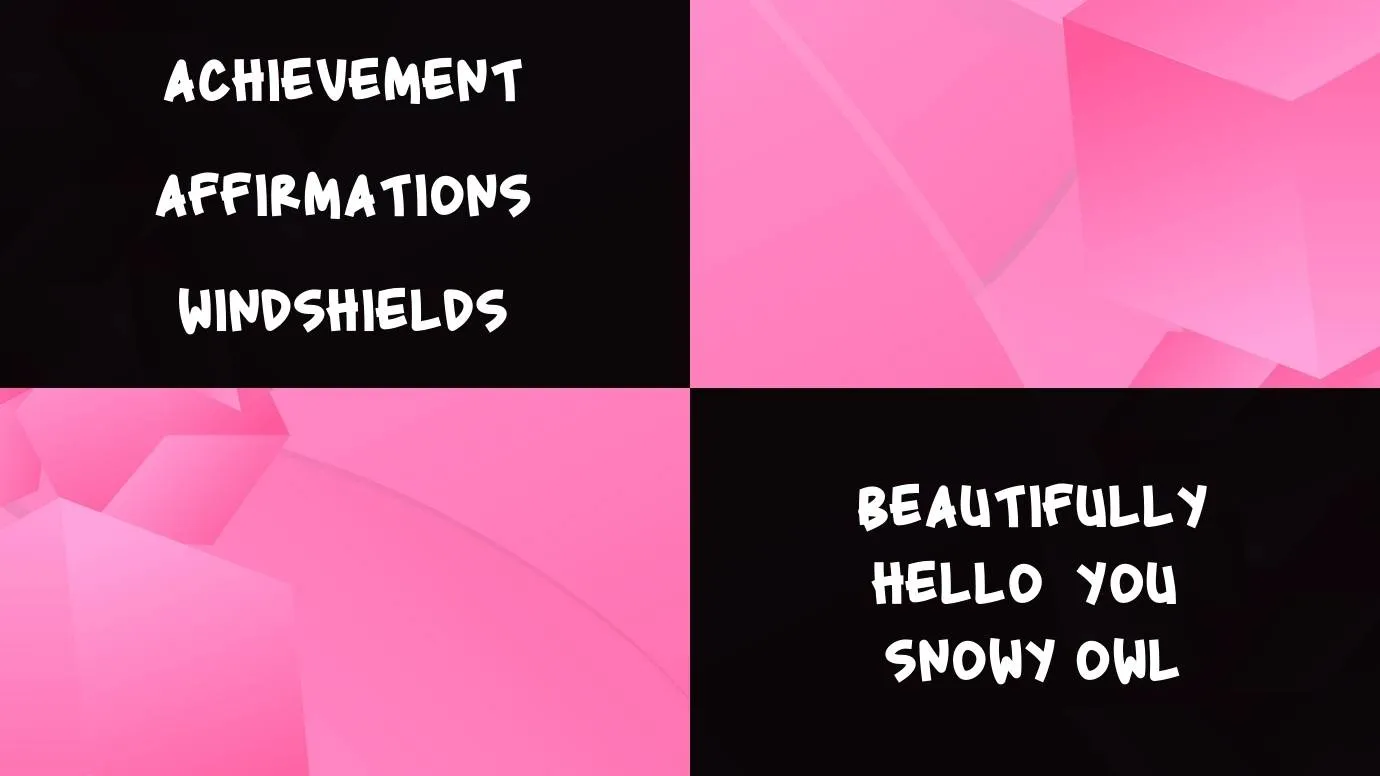
Baby Pink Font is a fancy typeface designed by a famous studio named Arutype Studio. The design is based on the modern display typefaces used in the 20th century with a more modern twist.
This Font was created to be a versatile typeface that could be used for both magazine and book covers. It includes only regular style that has very unique glyphs and variations. The character set includes all the standard Latin characters, as well as support for most Eastern European languages. It is much similar to the blocky Font and you can make many stunning arts and illusions with the help of this font.
This Font is a great choice for any project that needs a clean and modern look. It is perfect for web design, print design, and any other type of design where you need a versatile typeface. The typeface family is a little bit closer to burrito font, therefore you can combine them for making something really cool.
This font style has been used by numerous brands and publications, including Harvard Business Review, Magazine, and more.
The characters of this typeface are designed by Arutype Studio, which is a well-known studio that also created many popular fonts which are quite popular all over the world.
View of Baby Pink Font
Why is Baby Pink Font so popular?
This Font is so popular because it is a versatile typeface that can be used for both headlines and body text.